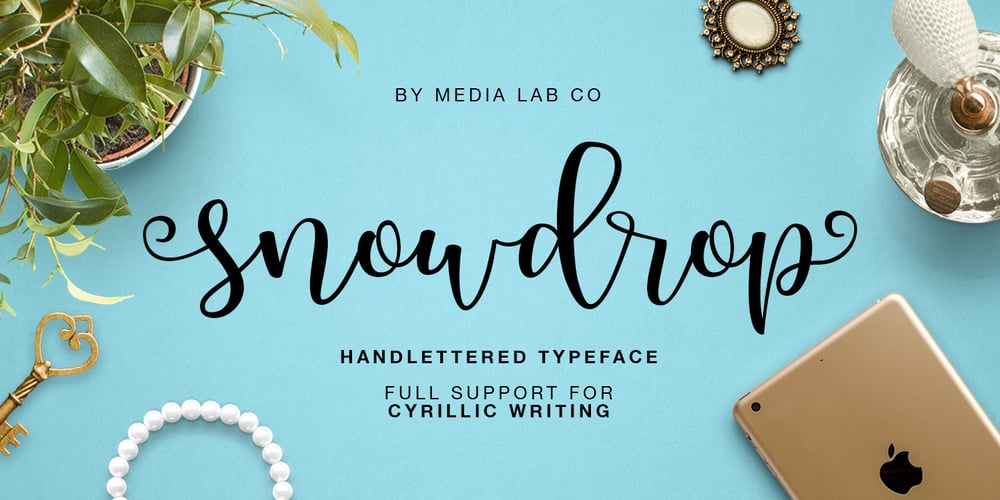
Snowdrop Font Family was designed by Dmitrii Chirkov and published by Supfonts. Snowdrop contains 2 styles and family package options. Thanks for checking out Snowdrop Script! A fabulously fun yet elegant script font with tons of energy, allowing you to create beautiful hand-made typography in an instant. With extra bouncy curves & alternates, Snowdrop Script is guaranteed to make your text stand out – perfect for wedding invitations, printed quotes, cards, product packaging, headers and whatever your imagination holds. By the way, you can make your own design IN ANY language What’s really awesome is that Snowdrop Script comes with a complete set of lowercase alternates, which allows you to create even more authentic custom-feel text. Another great feature is the bonus ornaments font, which allows you to add some really unique and elegant finishing touches to your script text. Here’s what you get in the download: 1. Snowdrop Script – A handwritten script font containing upper & lowercase characters, numerals and a large range of punctuation. Fully support of all Latin and Cyrillic languages 2. Snowdrop Swirls – The set of small letters with swirls at the beginning and end of the letter. You can use A-Z and A-z to get to them 3. Snowdrop Alt – The set of small letters with special endings + a set of letters with special curls for the middle of words Fonts are provided in TTF / OTF / WOFF formats. You do not need a special design program. Font easy and convenient to use.